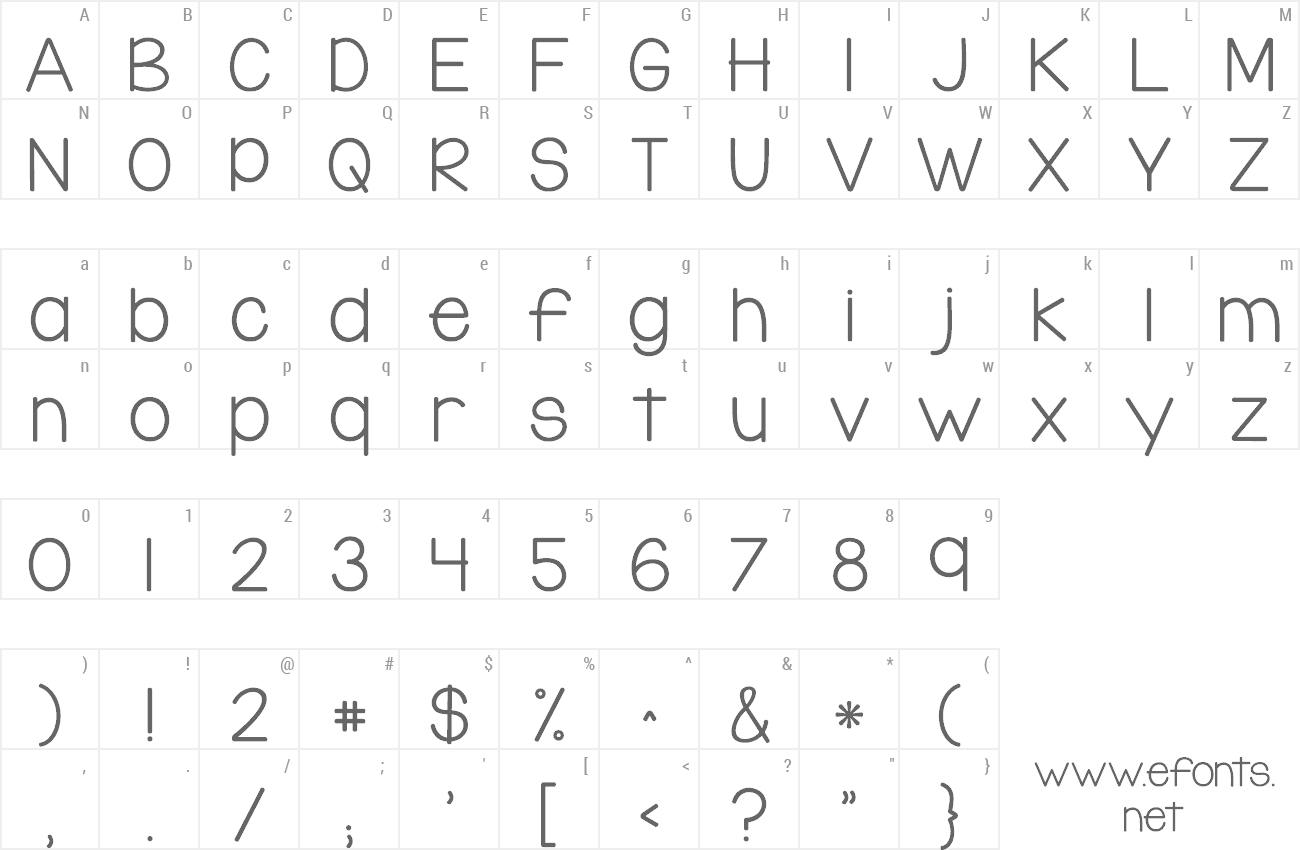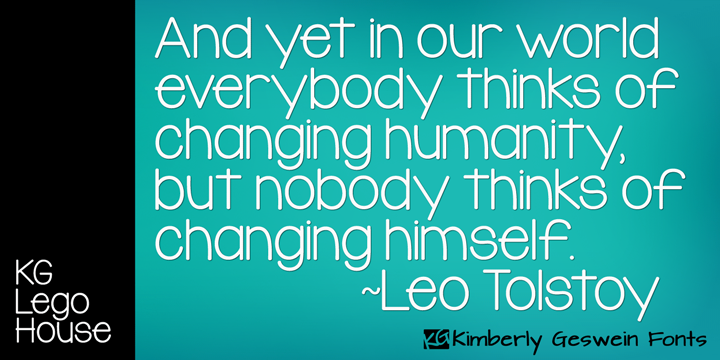
| Font name: | KG Lego House |
| Author: | Kimberly Geswein |
| Note by Kimberly Geswein | |
Neat handwriting perfect for teachers. This font includes extra math symbols for teachers. Just enough personality while still being perfectly neat. For commercial licensing, please see http://kimberlygeswein.com |